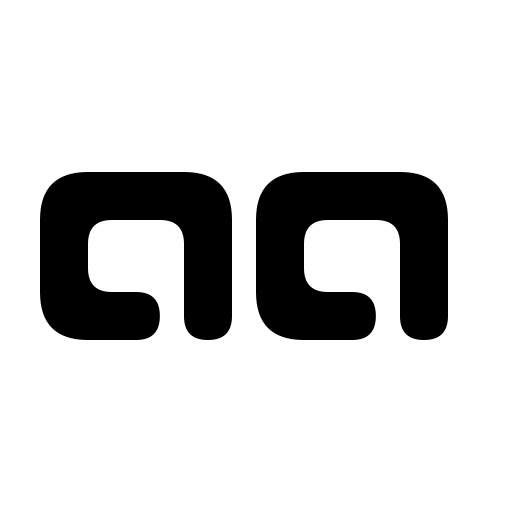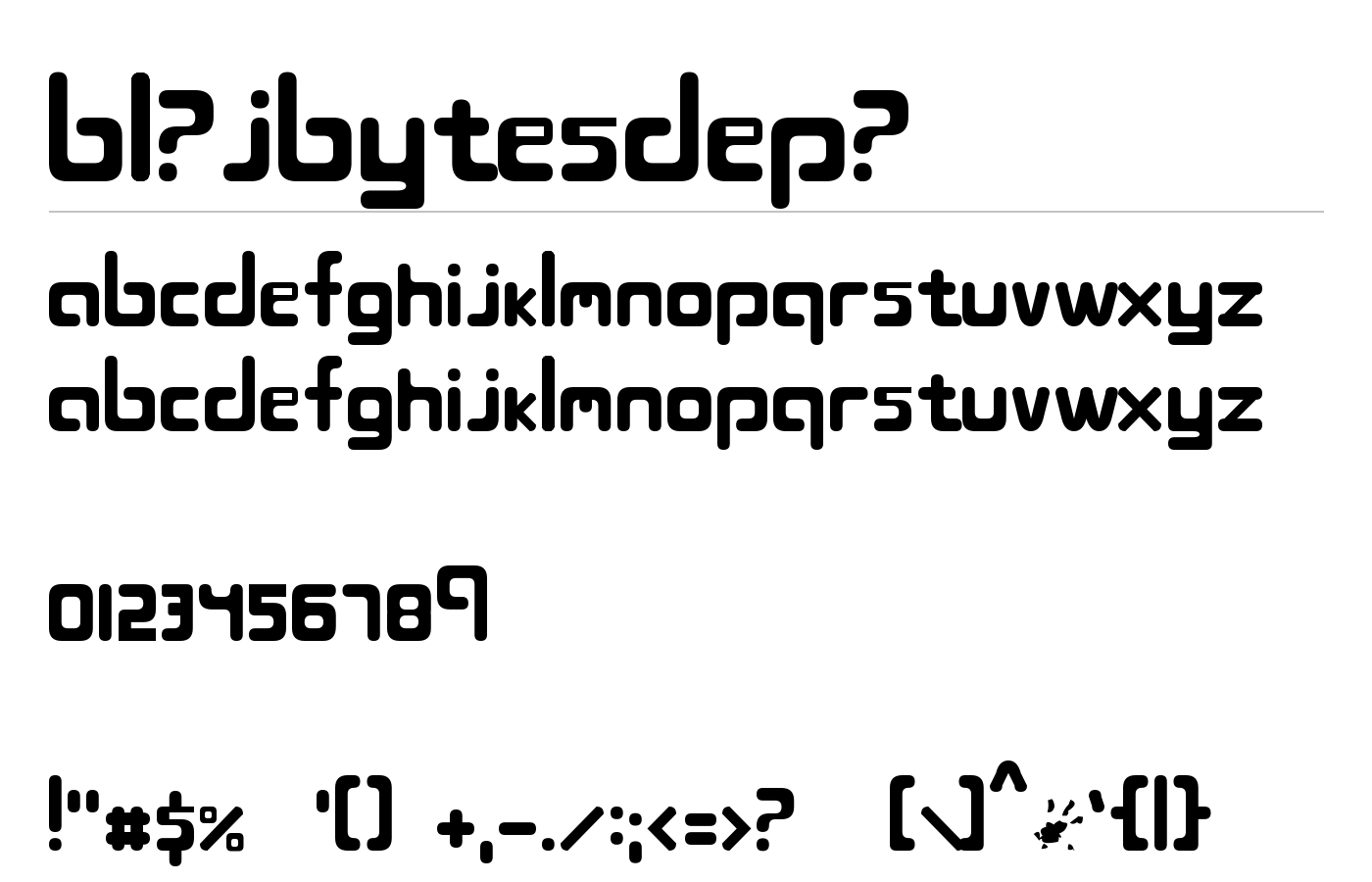
Blöjbytesdepå is a bold, rounded sans serif font with a playful and futuristic feel. Its consistent stroke weight, rounded corners, and unique geometric shapes give it a friendly, modern appearance ideal for creative branding, tech-related projects, and eye-catching headlines. This font works best in display settings where its distinctive style can stand out and add personality.
| Font family | Blöjbytesdepå Font |
| Designer | Staffan Vilcans |